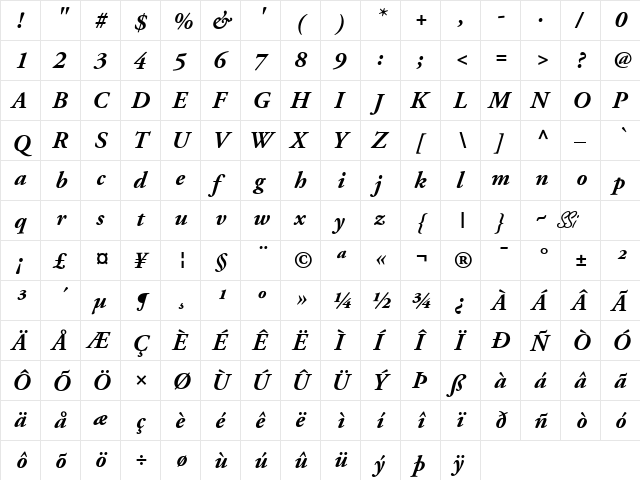
Garamond Black SSi Bold Italic
Garamond Black SSi offers clean, dependable letterforms without strong stylistic allegiance, making it a practical choice for designers who need flexibility. Its italic angle brings a sense of urgency and motion to the letterforms. Its bold stroke weight gives it real presence on the page.
Pro Tip: Use Garamond Black SSi for emphasis, pull quotes, and subheadings where its slanted energy can add rhythm to the layout.